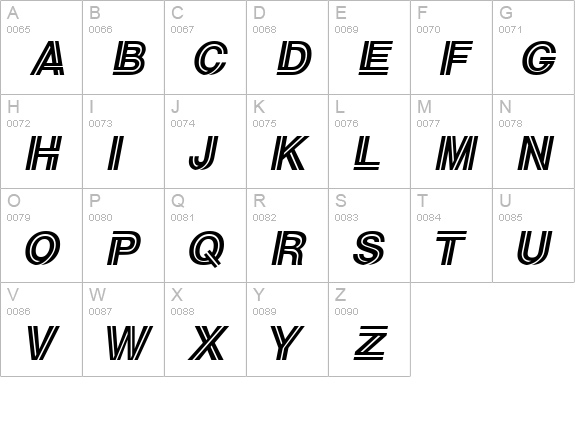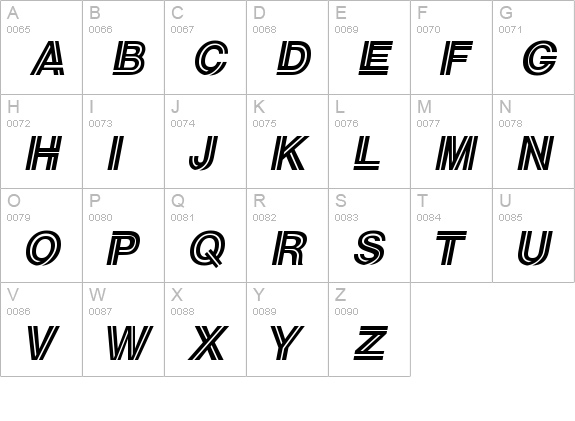
Dilemma Font Details
Dilemma font is a versatile and modern typeface that will add a touch of sophistication to any design project. With its sleek lines and elegant curves, this font is perfect for both headings and body text. Whether you're creating a logo, website, or print materials, Dilemma font will make your text stand out. What's even better is that Dilemma font is completely free to download! You can get your hands on this stylish font at FontsMarket.com and start using it in your projects right away. Don't miss out on the opportunity to elevate your designs with the timeless charm of Dilemma font.